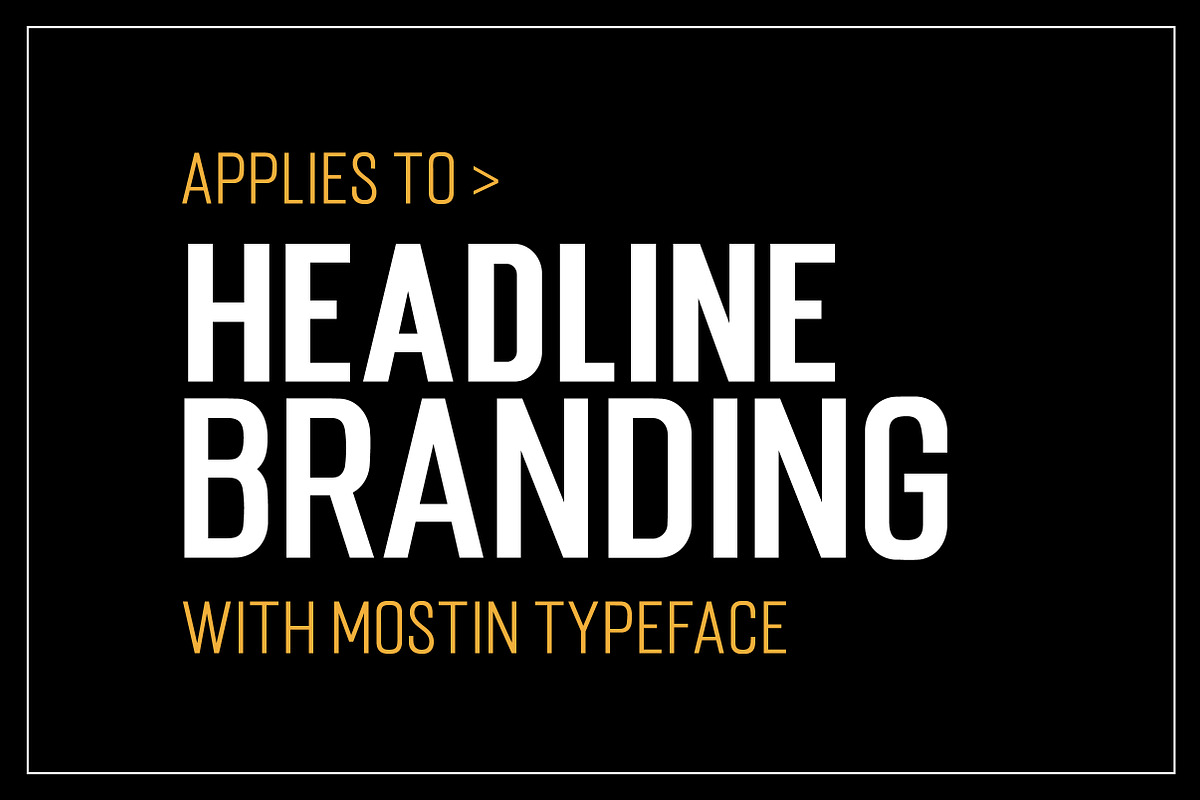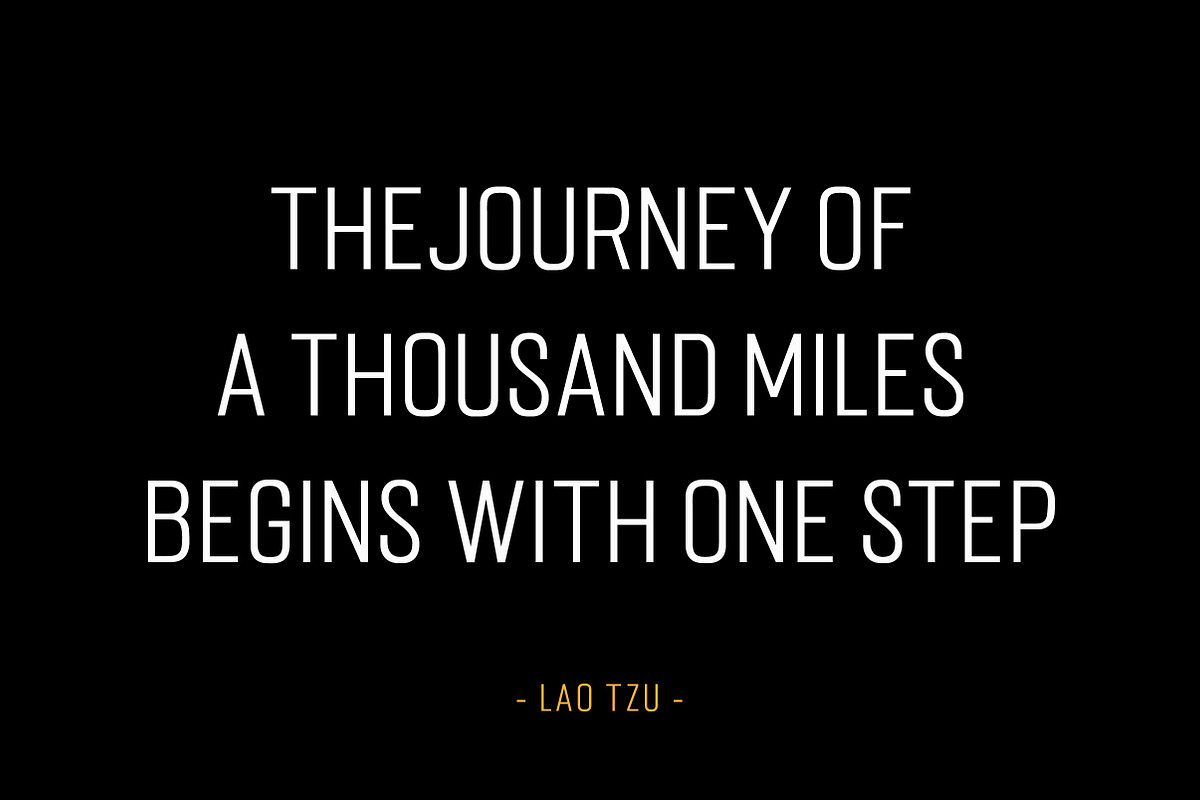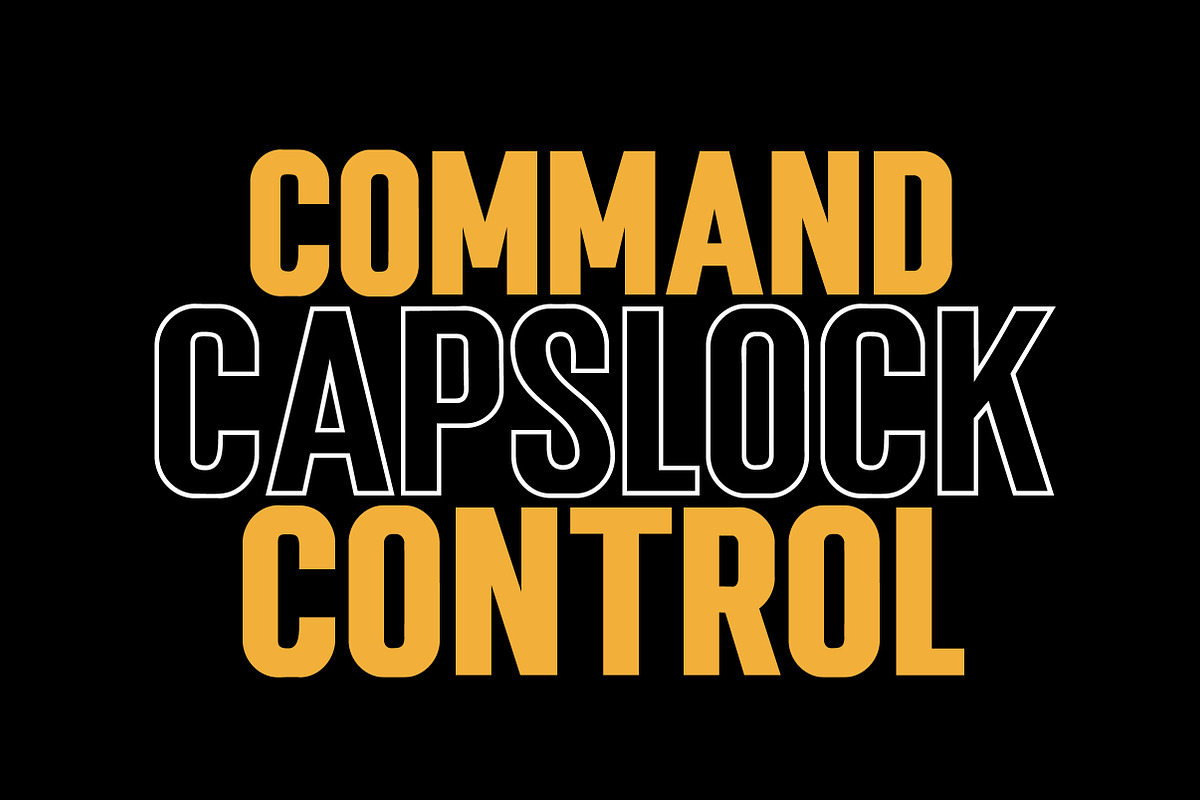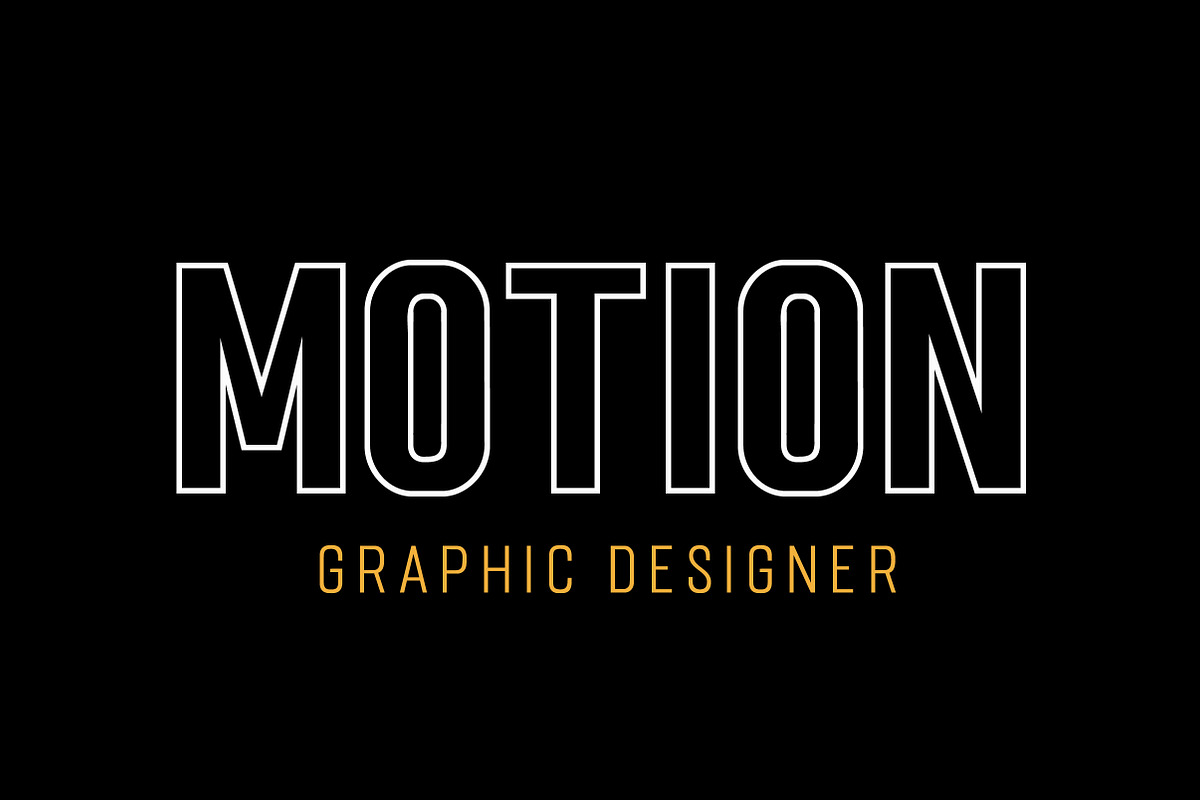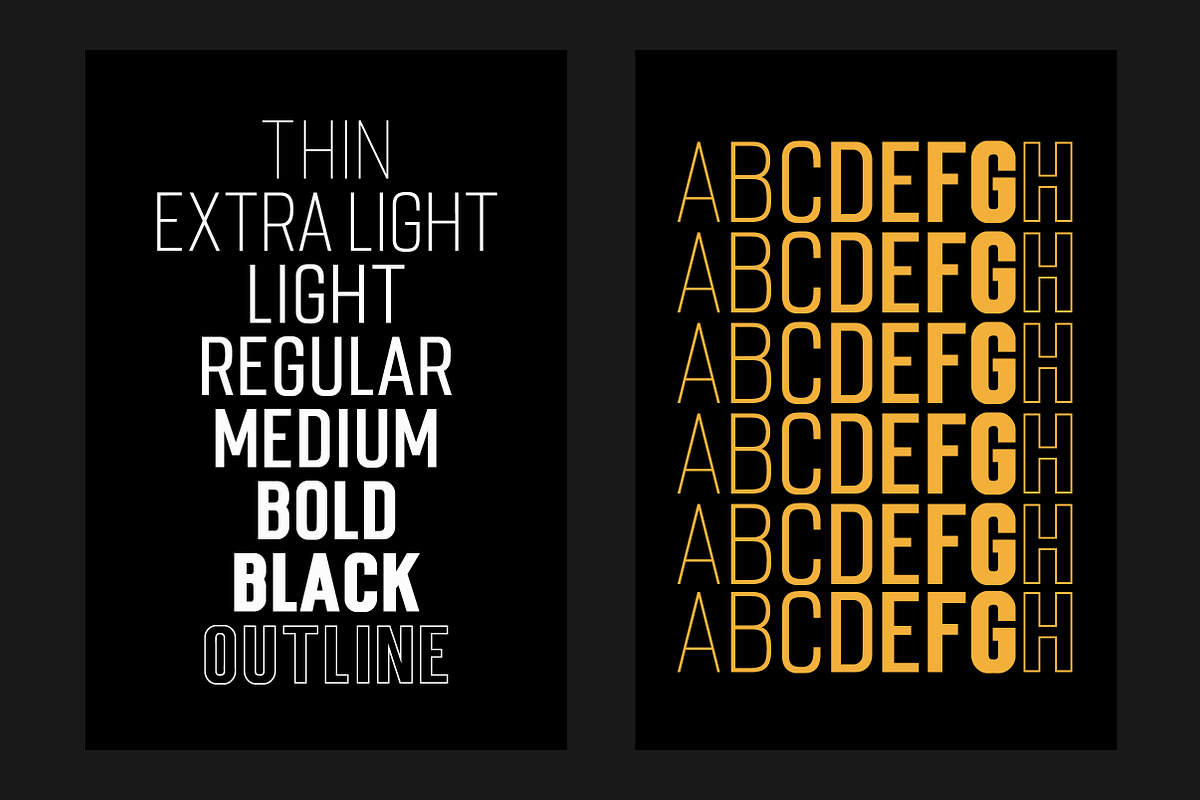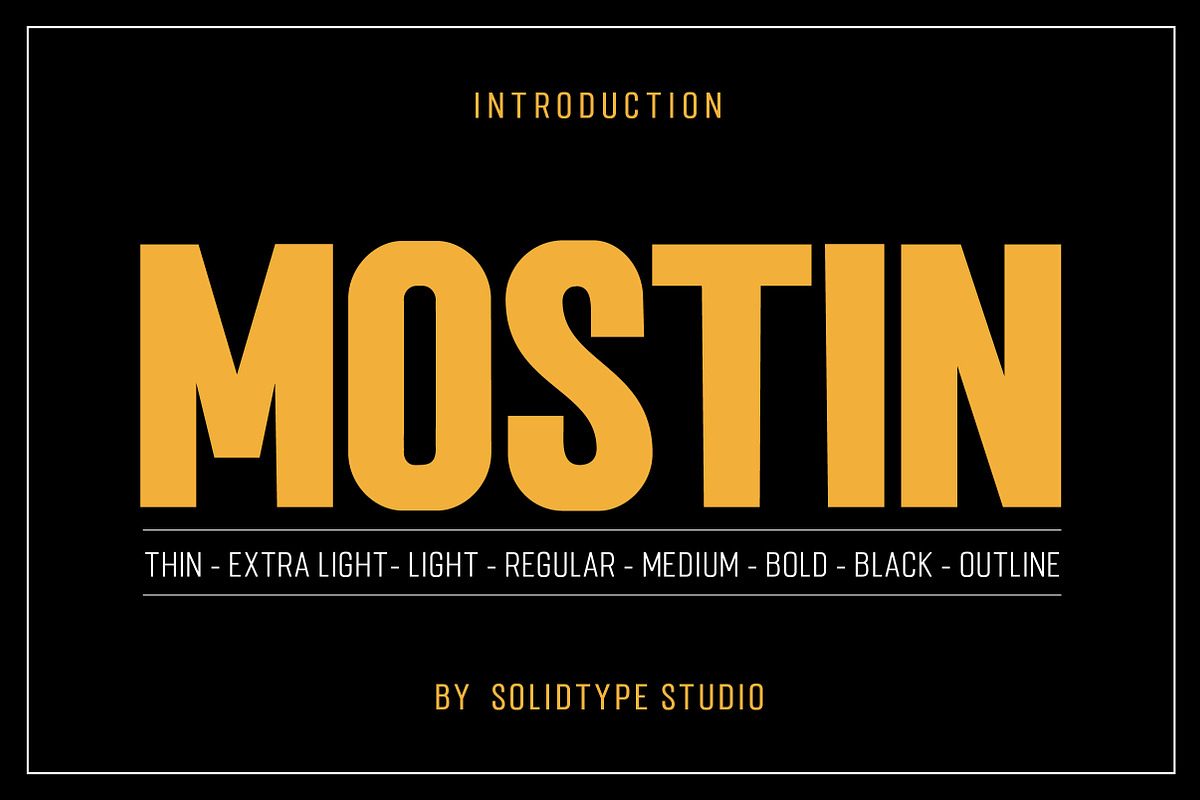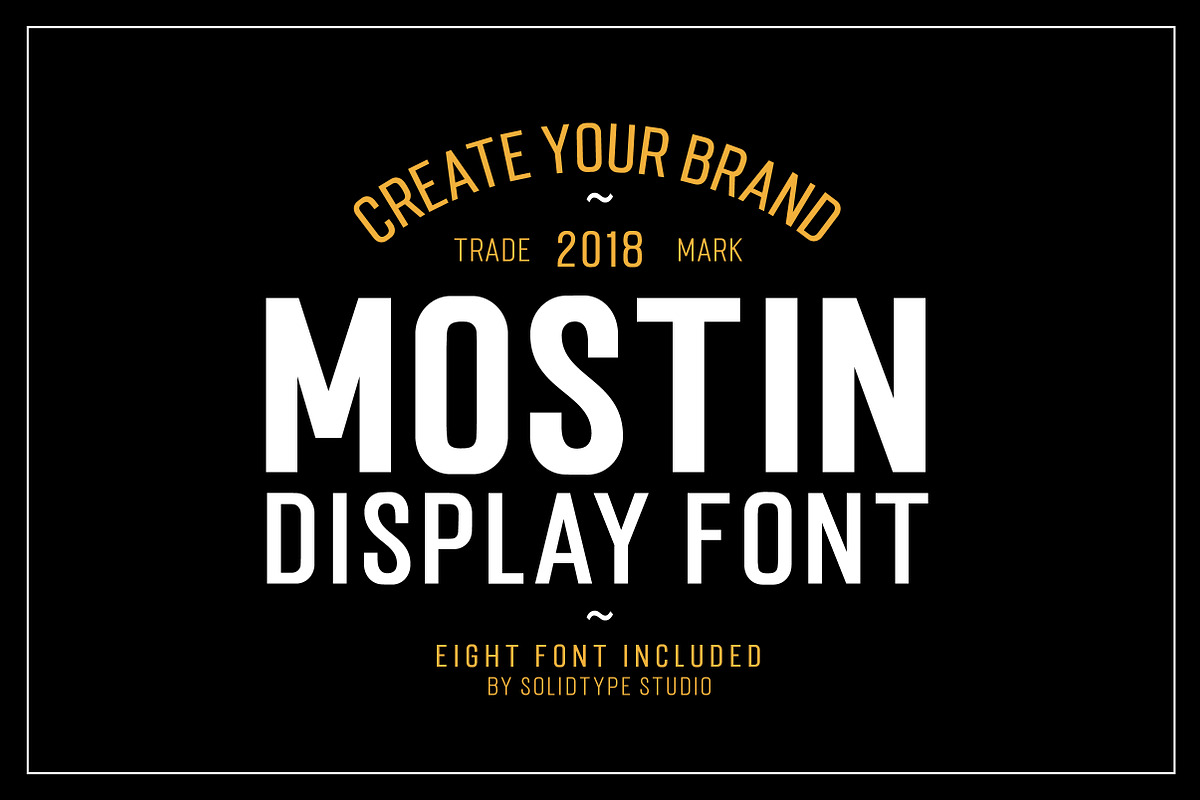
Mostin Typeface
Mostin is a sans serif font family designed with a modern and vintage feel. Strong and dynamic. Mostin is very versatile. Perfect for any branding, magazine, posters, logos, titles, blogs, and more. Mostin comes with a full set of uppercase, lowercase letters, numbers, punctuation and multilingual support. Each version of the font family comes in both .TTF and .OTF formats. for a total of 8 font files.
- Mostin comes with a full set of uppercase, lowercase letters, numbers, punctuation and multilingual support.
Why Mostin Typeface is worth a look
Mostin Typeface by Solidtype fits naturally into Branding, posters, packaging, typography.